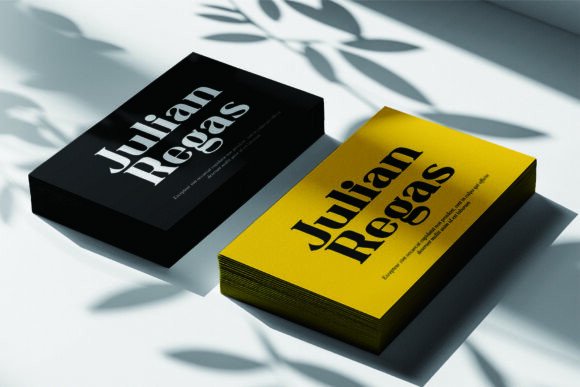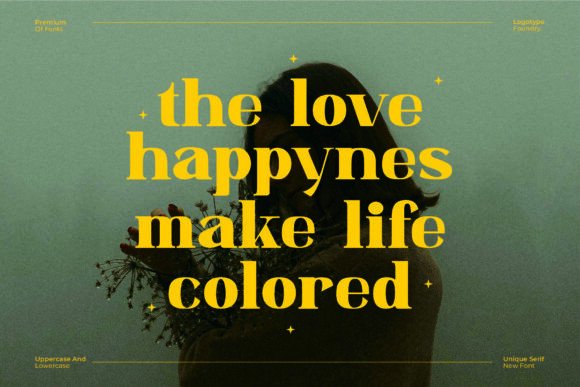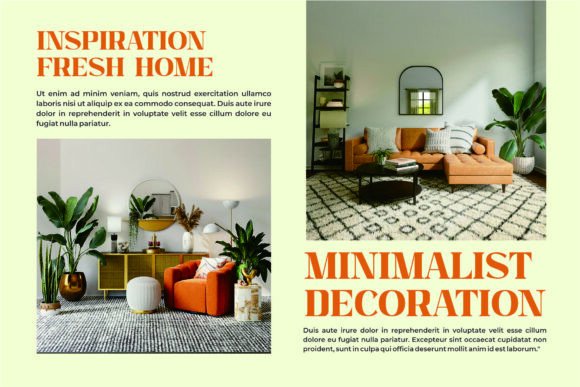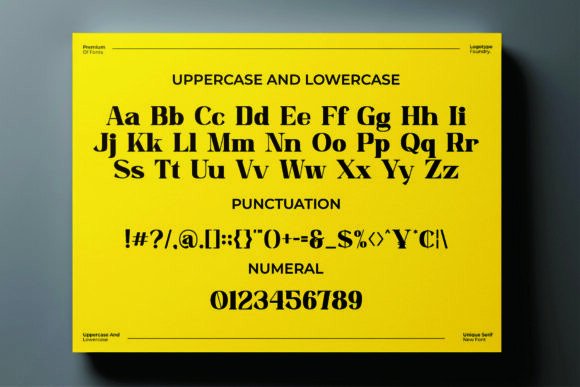
Introduction to Megants Font
You’ve just landed that big project, and you’re itching to create something truly breathtaking. As you browse through your design resource library, you stumble upon a font that instantly catches your eye – Megants Font. Its bold, elegant curves and thick strokes are like a breath of fresh air, making you eager to dive in and explore its possibilities.
| 👤 Author | Idea Studio |
What sets Megants Font apart is its unique blend of classic serifs and modern flair, making it the perfect choice for luxury branding, magazine headlines, packaging, and stylish logos. With its high-quality design and transparent background, you can easily customize it to fit your creative project’s needs.
Key Features of Megants Font
- Transparent background, allowing for seamless integration with various backgrounds
- Large character set, including a wide range of languages and special characters
- Designed with a unique aesthetic, perfect for adding a touch of sophistication to any design
Honest Review: Megants Font
As a designer, I’m always on the lookout for high-quality design resources to enhance my creative projects. The Megants Font has caught my attention, and I’m excited to share my honest review.
What works well: ✨ The Megants Font offers a beautiful, modern aesthetic that’s perfect for contemporary designs. The font’s clean lines and elegant typography make it an excellent choice for headlines and titles. I also appreciate the transparent background, which allows for seamless integration into various design elements.
- High-quality design with a modern aesthetic
- Perfect for headlines, titles, and creative projects
Any limitations: ⚠️ While the Megants Font is a great addition to any design resource library, I do wish it came in more font weights and styles. Additionally, some users may find the font’s minimalist design too simplistic for certain projects.
Overall impression: I’m impressed with the Megants Font’s quality and versatility. It’s an excellent choice for designers looking for a high-quality, free design resource. With a bit more variety in font weights and styles, this font could be a top contender in the design world.
Megants Font
Megants Font is a high-quality, versatile font that can be used for a wide range of creative projects. It features a transparent background, making it easy to customize and blend with other design elements.
Tips for Getting the Most Out of Megants Font
Experiment with different font sizes, colors, and combinations to find the perfect look for your design project.
Megants Font is perfect for:
Logos and branding materials
Social media graphics and posts
Presentations and reports
Documents and brochures
Alegreya is similar to Megants Font in its elegant and sophisticated design, but it offers more versatility and a wider range of styles.
Montserrat is a modern sans-serif font that is ideal for creative projects that require a clean and minimalistic look. It features a transparent background and is available for free download, making it a popular choice among designers. Suitable for use in logos, headings, and body text.
Montserrat is different from Megants Font in its more geometric and urban feel, making it perfect for modern design projects.
What is the recommended font size and resolution for the Megants Font?
We recommend using the Megants Font at a minimum of 12pt font size for optimal readability. In terms of resolution, we suggest using a high-resolution setting (at least 300 DPI) to ensure the font looks crisp and clear in your design project. This will help maintain the font’s high-quality design and prevent any pixelation or distortion.